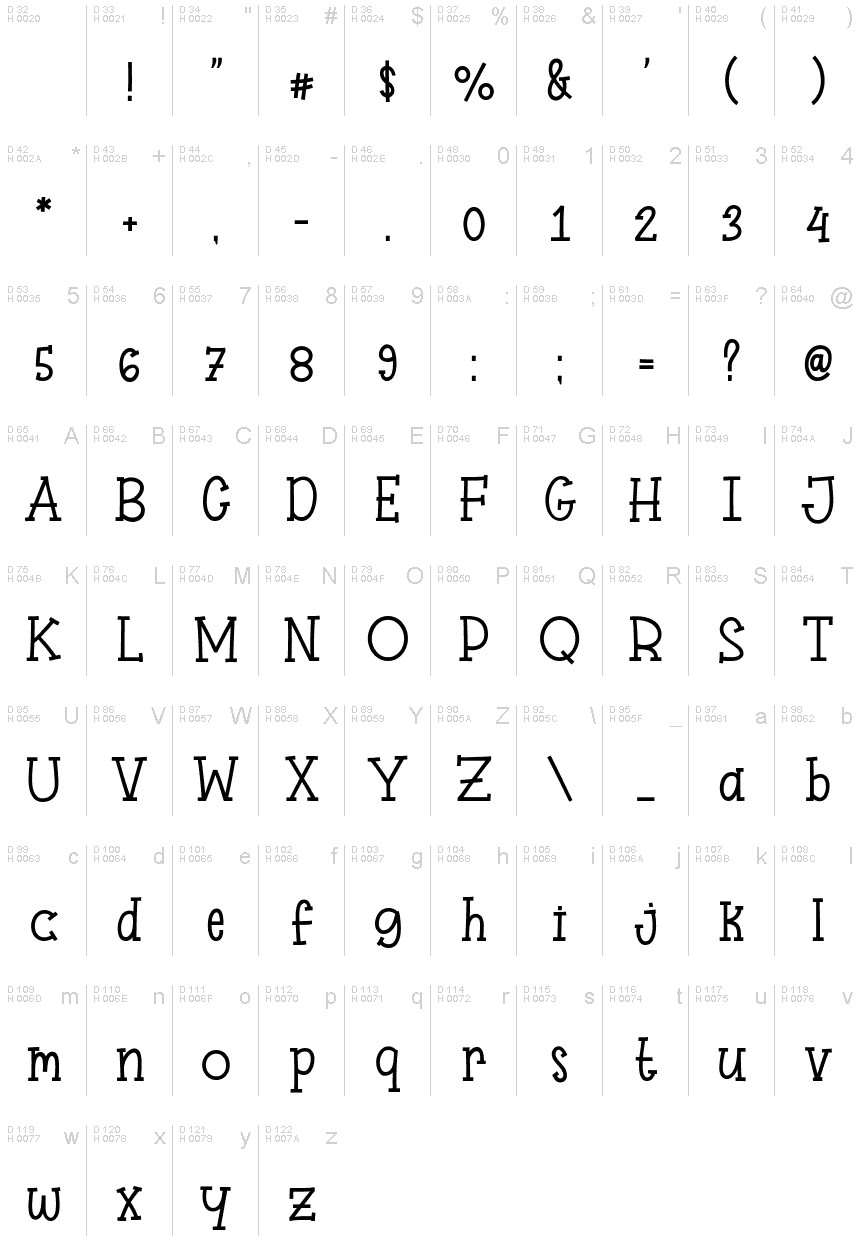
Mommyland
Mommyland, the whimsical display font designed by Khurasan, is perfect for projects that need a touch of playfulness. Its semi-light weight and cartoon style make it ideal for children's books, posters, and packaging. Imagine using Mommyland for a colorful birthday party invitation or a fun educational app. This font's unique design will surely capture the attention of your target audience and add an extra layer of charm to your project. With Mommyland, you can let your creativity run wild and create designs that are both memorable and delightful.